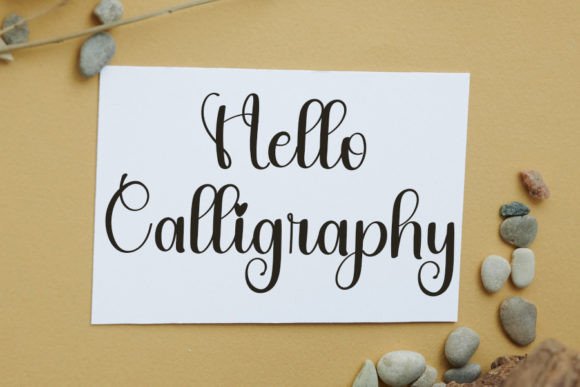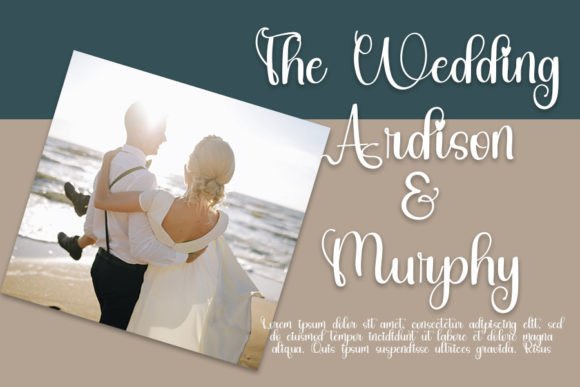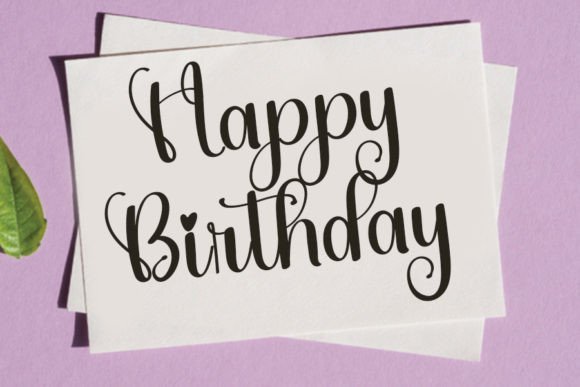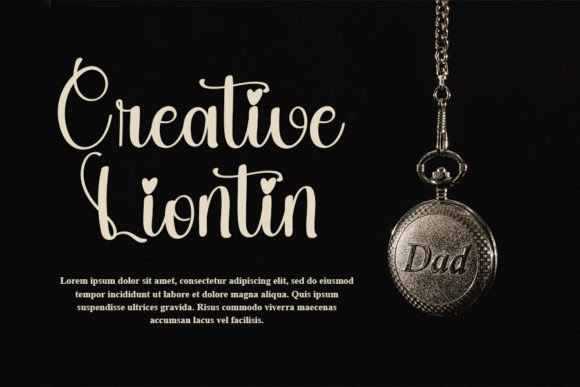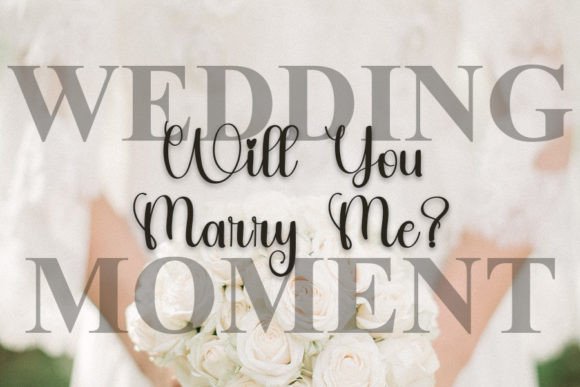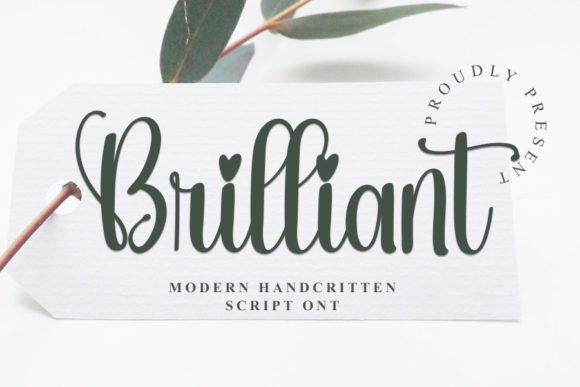
The Brilliant Font: Elevate Your Designs with Elegance and Class
With its trendy handwritten style and contemporary atmosphere, Brilliant is the perfect addition to any design project that requires a touch of elegance and class. In this article, I’ll share my honest review of the font, provide a practical guide on how to use it, and explore similar fonts that you might enjoy.
An Honest Review of Brilliant Font
• ✨ Beautifully crafted letters: Each letter in the Brilliant font is meticulously designed to perfection, with a focus on clean lines and elegant curves.
• ✅ Versatile: Brilliant can be used for a wide range of design projects, from luxury branding to wedding invitations and more.
• 🌈 Contemporary feel: The font has a modern twist that makes it perfect for designers looking for a fresh, trendy look.
While Brilliant is an amazing font, there are a few things to keep in mind: 🤔
• ⚠️ Limited use of OpenType features: While Brilliant does offer some OpenType features, it’s not as extensive as some other fonts on the market.
• ⚠️ May require manual kerning: Depending on the project, you may need to adjust the kerning to get the best results.
The Story Behind Brilliant Font
Brilliant is inspired by timeless classic calligraphy, with a modern twist. The font was designed to evoke a sense of elegance and sophistication, while still feeling fresh and contemporary. The designer behind Brilliant drew inspiration from traditional calligraphy techniques, combined with modern digital tools to create a truly unique font.
Q: What is the Brilliant font best used for?
A: Brilliant is a versatile font that can be used for a wide range of design projects, including luxury branding, wedding invitations, and more.
Q: Is Brilliant a script font?
A: Yes, Brilliant is a handwritten script font with a elegant, cursive feel.
Q: Does Brilliant support OpenType features?
A: Yes, Brilliant offers some OpenType features, including glyphs and stylistic alternates.